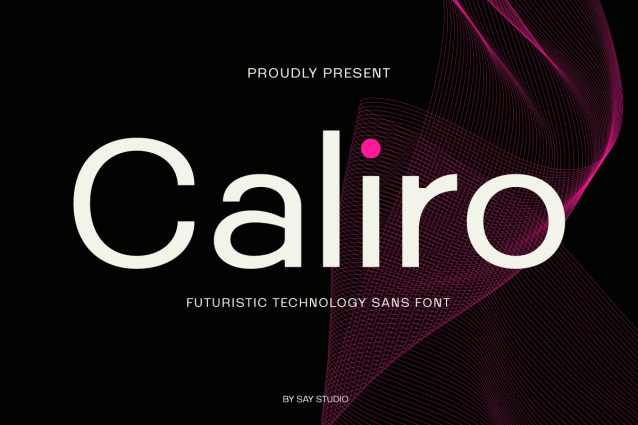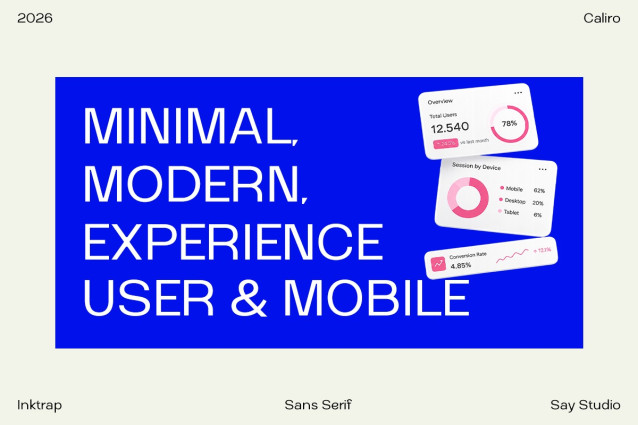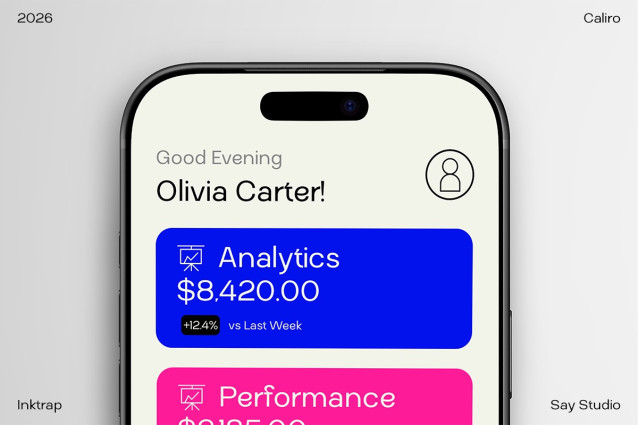
Caliro – Futuristic Technology Sans Serif Font
Caliro is a futuristic technology sans serif font crafted for modern digital aesthetics, where clean geometry meets sleek precision. Designed with a contemporary inktrap-inspired structure, Caliro delivers a sharp, minimal, and highly functional personality that feels right at home in UI/UX projects, startup branding, tech presentations, dashboards, mobile interfaces, and visionary editorial layouts. Its elegant proportions and modern construction make every headline feel premium, intelligent, and forward-thinking.